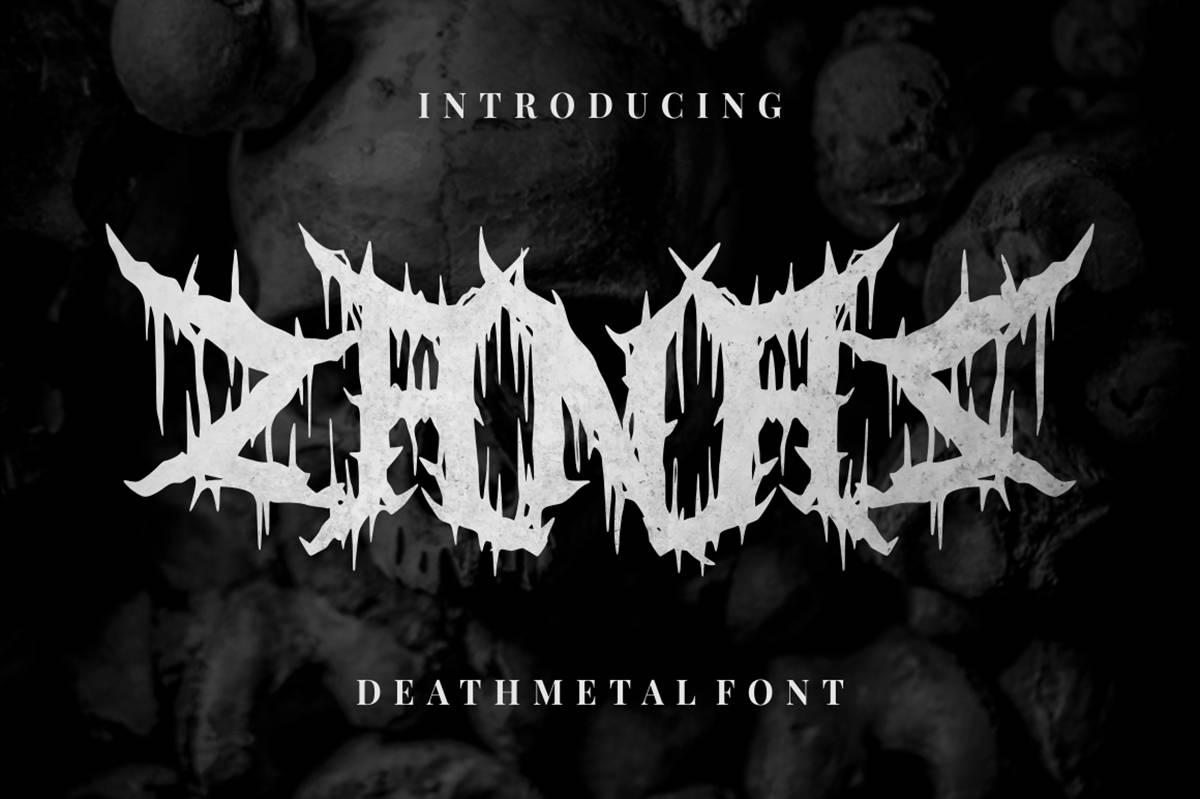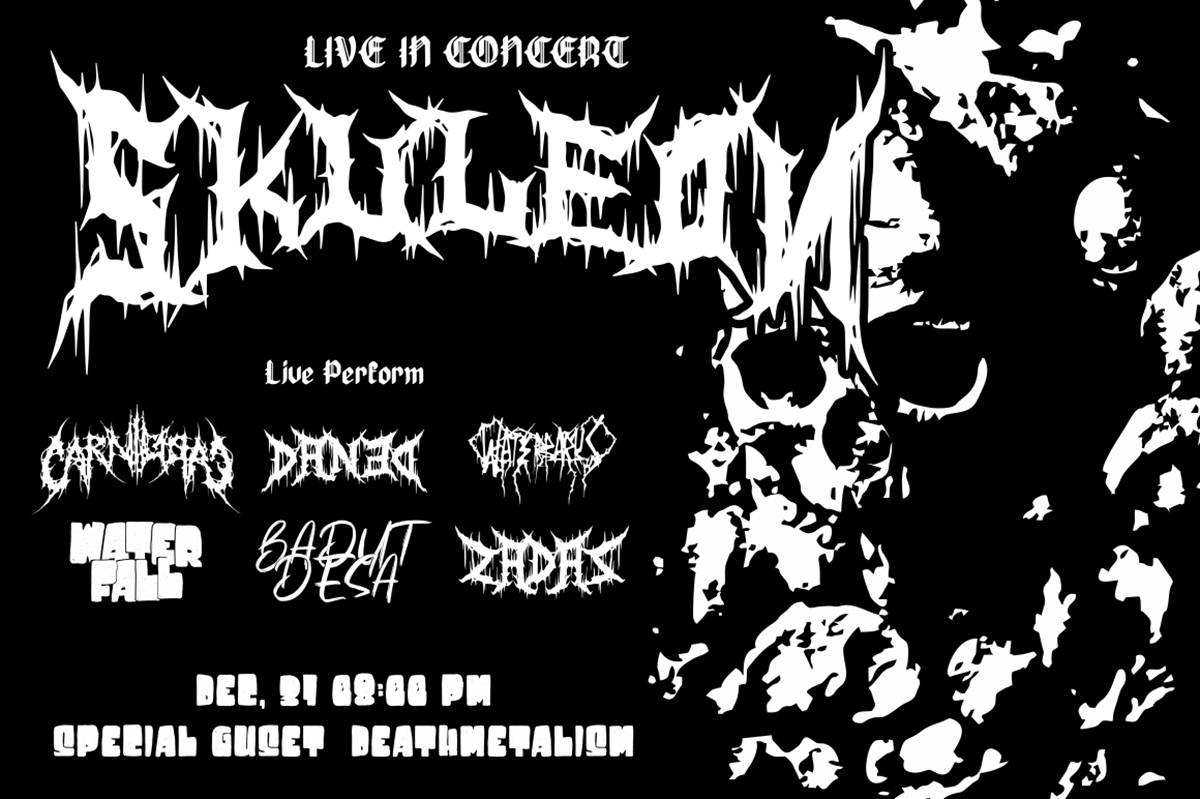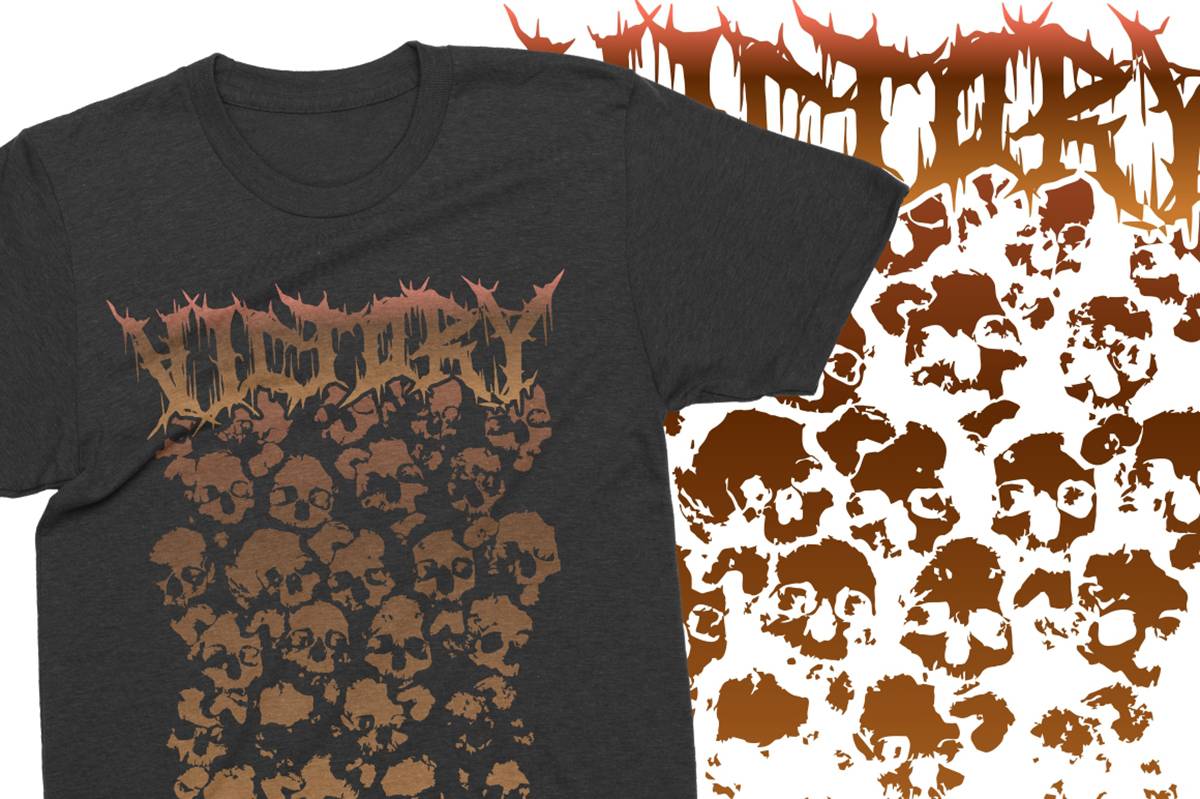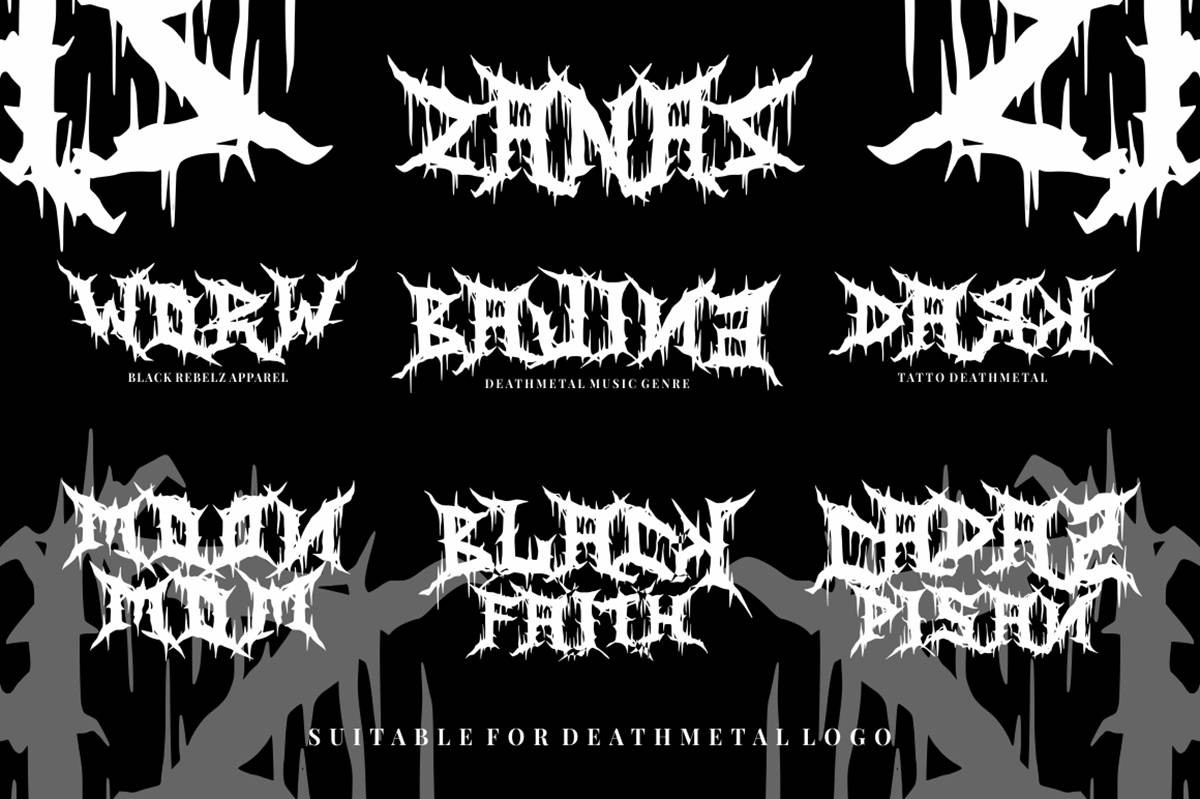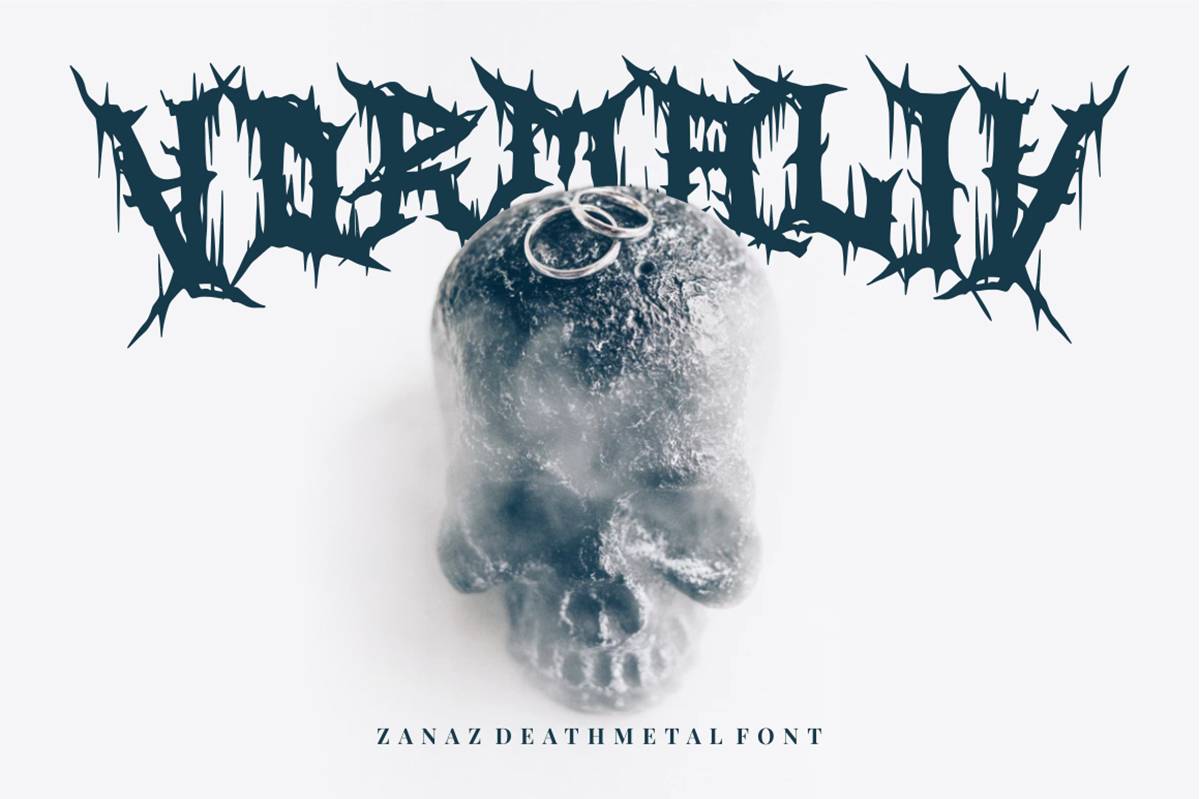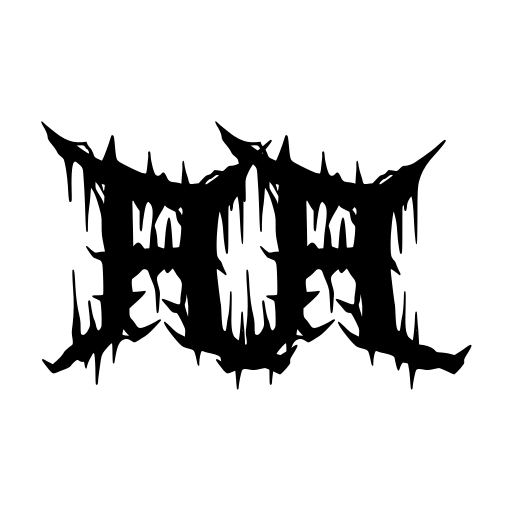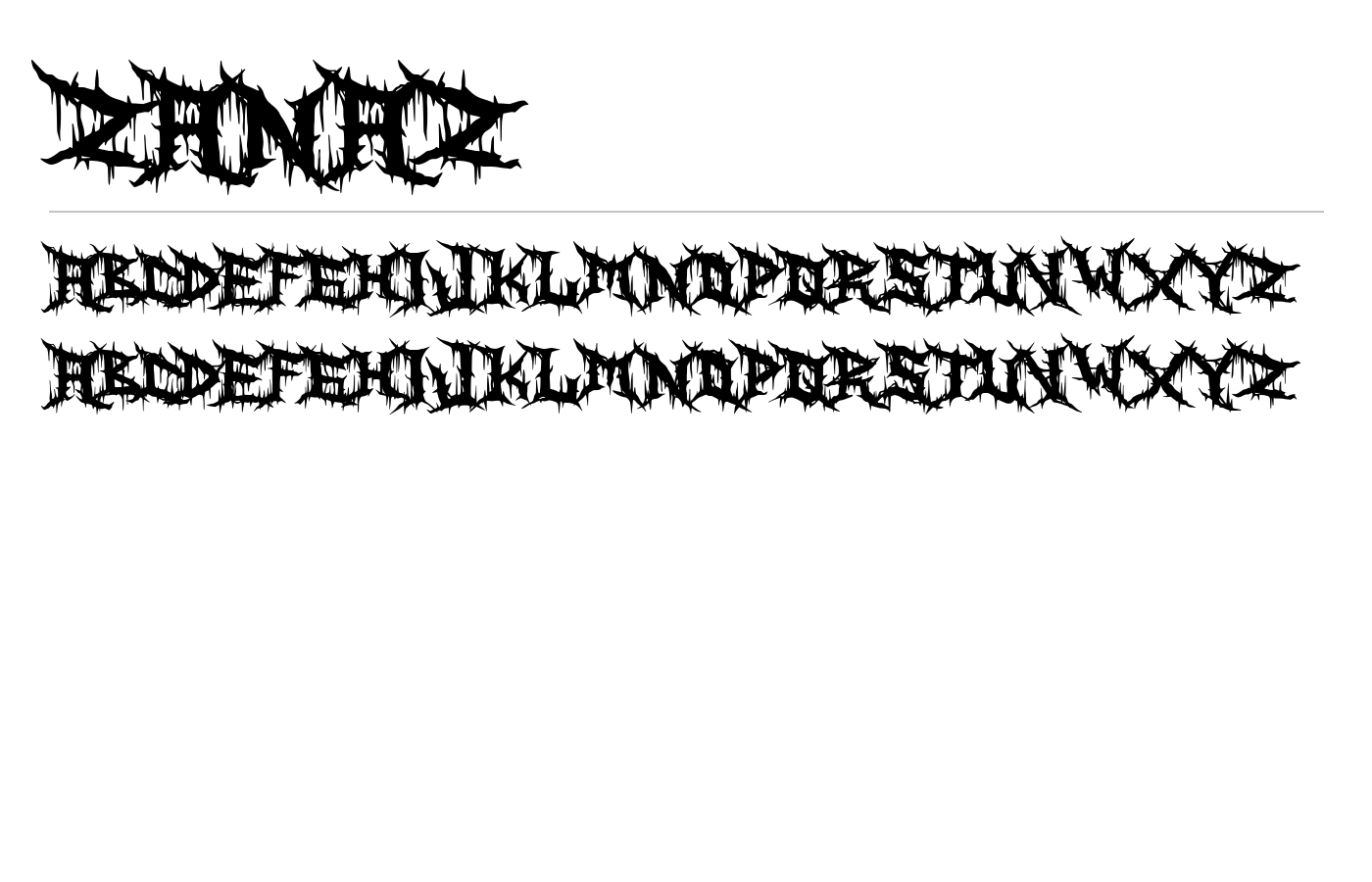
Zanaz is a highly decorative, distressed display font featuring sharp, jagged edges that create a chaotic and intense visual impact. Its rough, thorn-like strokes evoke a dark, edgy vibe perfect for horror, metal band logos, or extreme sports branding where a bold, aggressive personality is desired. This font stands out best in large sizes for posters, album covers, and striking headlines rather than body text due to its intricate, hard-to-read shapes.
Zanaz Font
About Zanaz Font